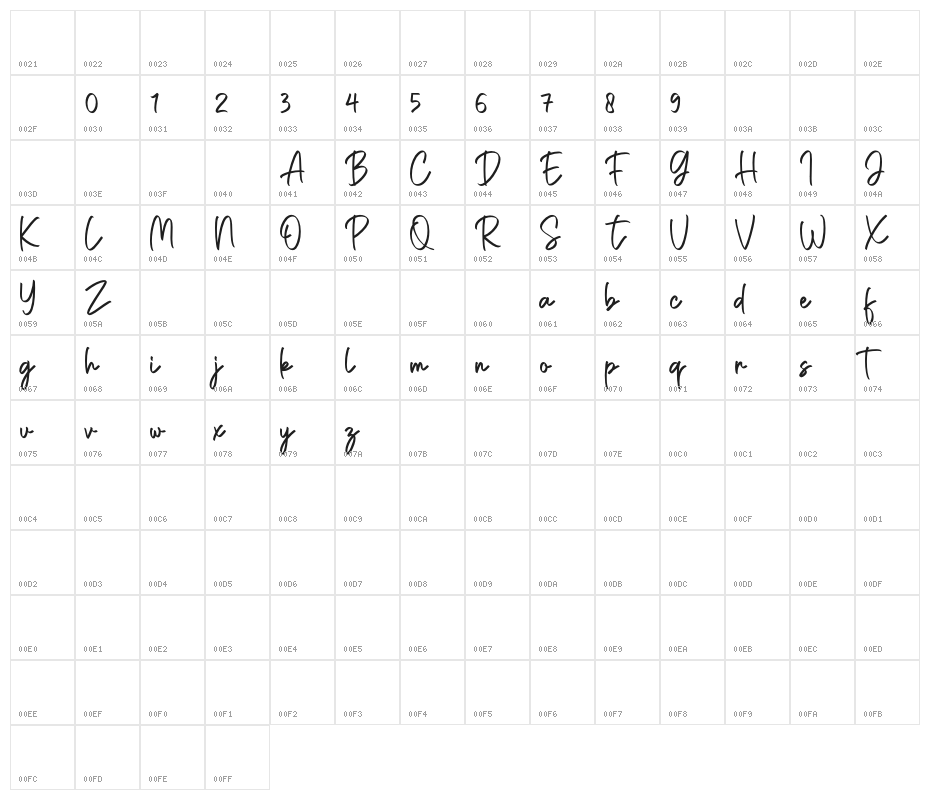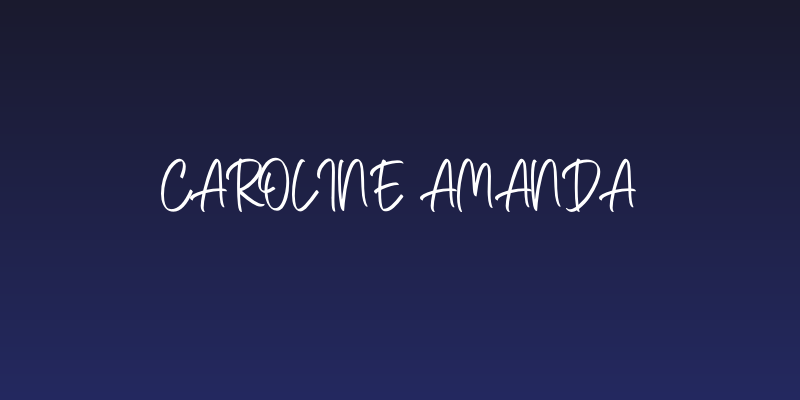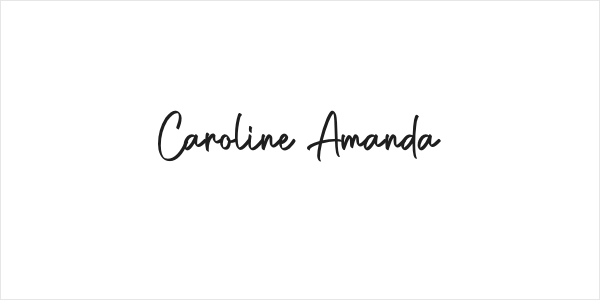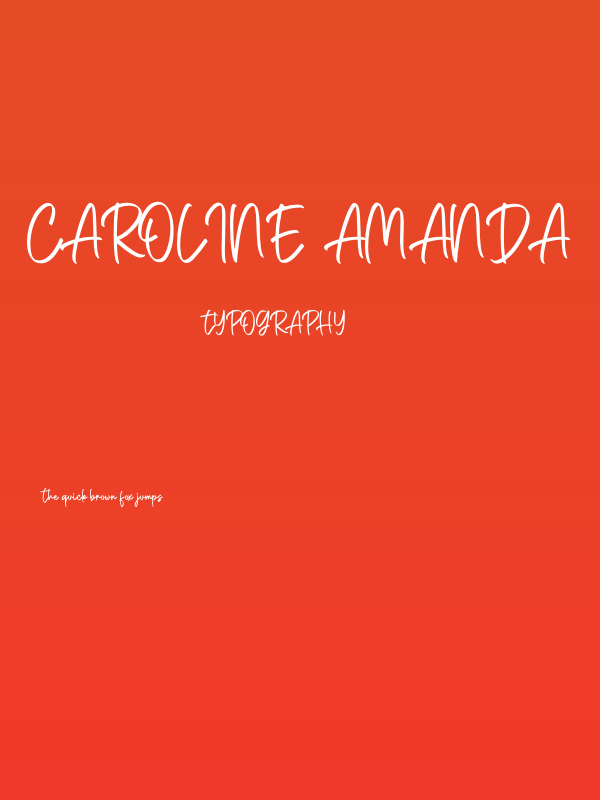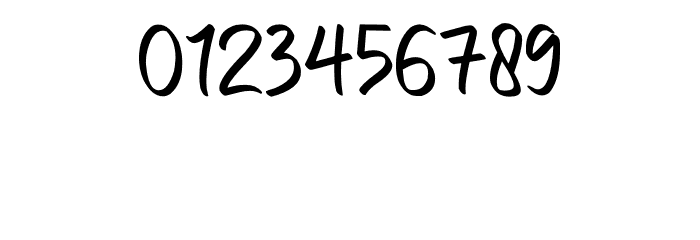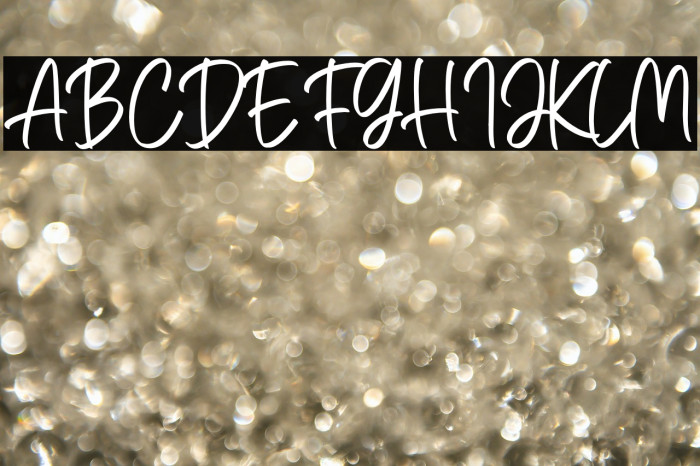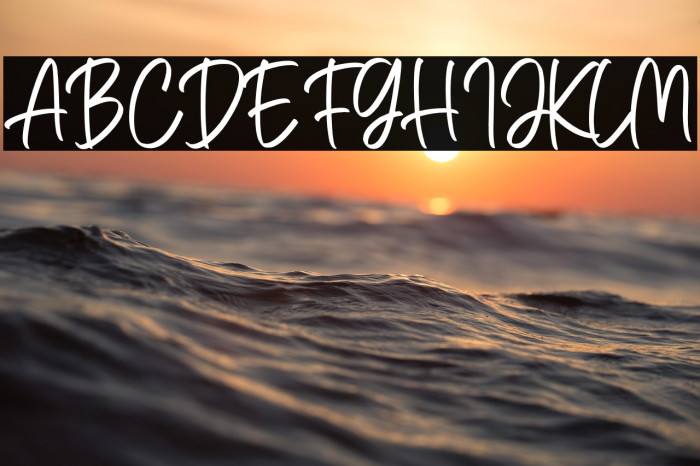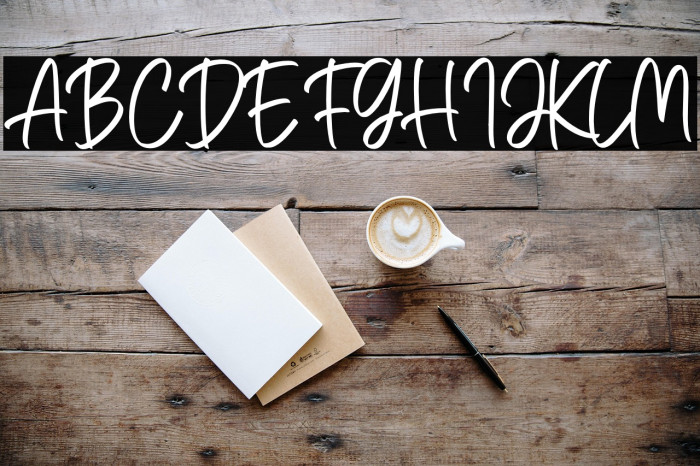
Caroline Amanda Font
Caroline Amanda Description
This font features a lively and dynamic handwritten style, characterized by its fluid and continuous strokes. The uppercase letters are tall and slightly narrow, with a playful bounce that adds a sense of movement. The lowercase letters maintain a consistent flow, with some letters connecting seamlessly, enhancing its cursive appeal. The numbers are bold and clear, matching the overall energetic vibe of the alphabet. Special characters are crafted with the same attention to detail, ensuring they blend well with the rest of the set. This font exudes a casual yet sophisticated charm, making it versatile for various creative applications.
| Proposed Projects | Ideal for greeting cards, invitations, branding, and social media graphics. |